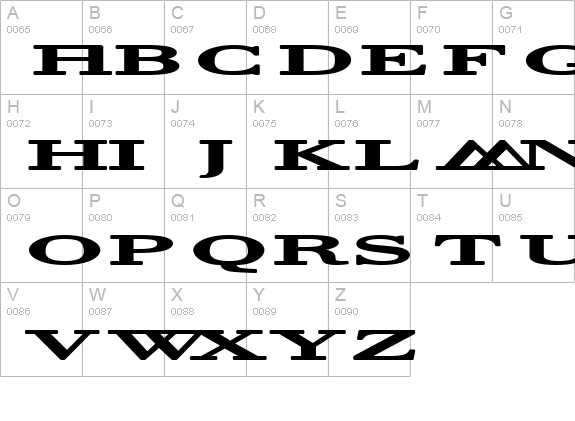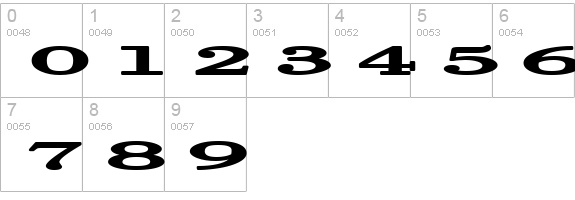
Halcyonia Superwide Font Details
Introducing Halcyonia Superwide Font, a stunning typeface that effortlessly combines elegance with modernity. With its unique and bold design, this font is sure to catch the eye and make a lasting impression. Halcyonia Superwide Font is perfect for a wide range of design projects, from logos and branding to headlines and posters. Its wide and spacious letterforms create a sense of openness and clarity, making it highly legible even at smaller sizes. The clean lines and smooth curves add a touch of sophistication to any composition, giving your designs a professional and refined look. But what truly sets Halcyonia Superwide Font apart is that it is available for free! That's right, this extraordinary font can be downloaded without any cost at FontsMarket.com. Whether you're a professional designer or a hobbyist, this font gives you the opportunity to elevate your creations without breaking the bank. With its extensive character set, Halcyonia Superwide Font supports multiple languages, making it a versatile choice for global projects. Its stylish and contemporary appearance ensures that it will remain a timeless addition to your font collection, adapting seamlessly to various design styles and themes. Crafted with utmost precision and attention to detail, Halcyonia Superwide Font is a true testament to the art of typography. Its balanced proportions and harmonious aesthetics make it a versatile and reliable choice for any creative endeavor. So why wait? Take advantage of the opportunity to enhance your designs with the captivating Halcyonia Superwide Font. Download it freely at FontsMarket.com and experience the power of this exceptional typeface. Unleash your creativity and let Halcyonia Superwide Font elevate your designs to new heights.